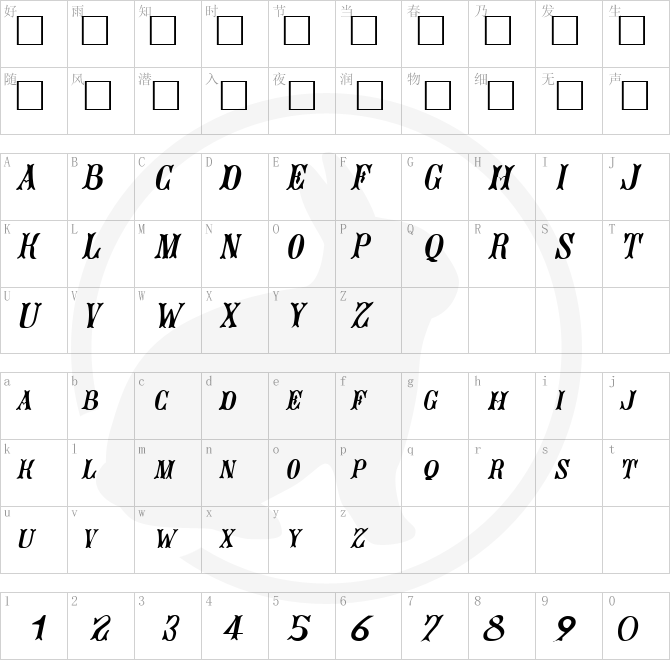
- Font Name:Jacques
Jacques-Italic-copy-2-.ttf is a very beautiful artistic font, Jacques-Italic-copy-2-.ttf is widely used in the design and printing of various books and pictures,Jacques-Italic-copy-2-.ttf has a strong visual impact,Jacques-Italic-copy-2-.ttf is a commonly used font in newspapers, magazines and books, and is used in posters, e-commerce Poster design, store design, logo design, font design and other fields.Jacques-Italic-copy-2-.